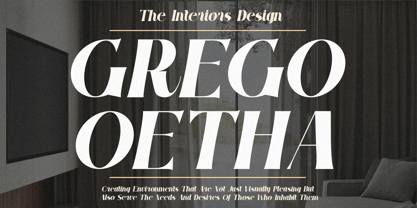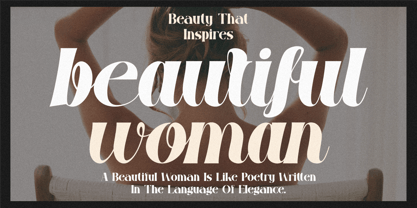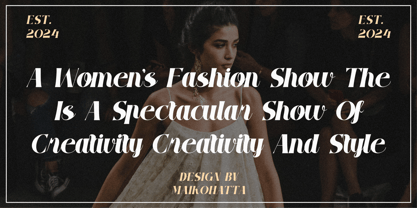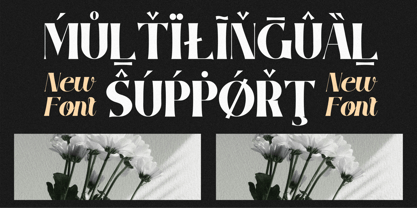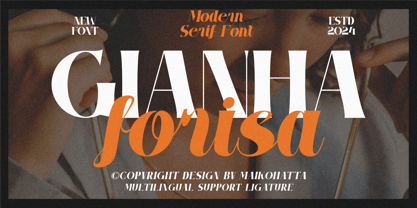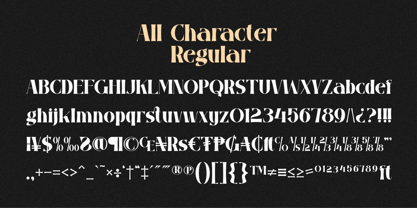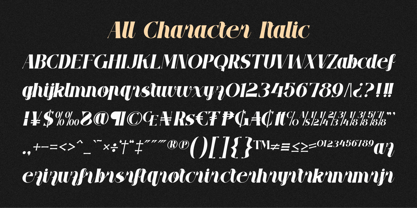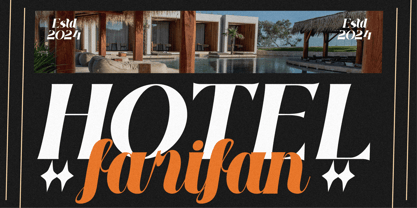
Gianha Forisa
by Maikohatta
The Gianha Forisa Font Family was designed by Gilang Ternadho and published by Maikohatta. Gianha Forisa contains 2 styles and family package options.
Introducing our new product Gianha Forisa - Modern Serif Font
This font features a balanced proportion of stroke thickness and fineness, creating attractive and easy-to-read visuals. This modern serif style is often characterized by a bold distinction between thick and thin lines, providing a touch that is understated but still stands out.
Gianha Forisa